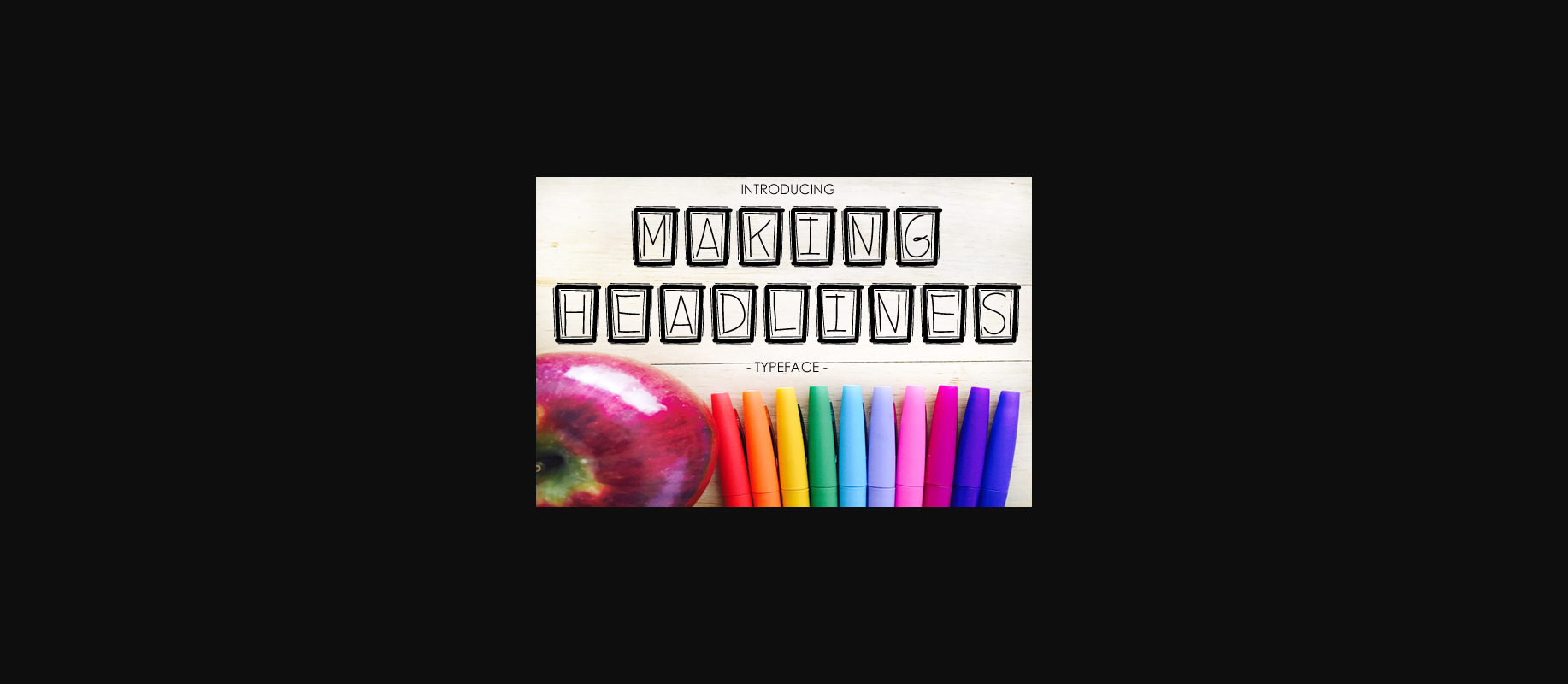
Making Headlines Font
About Making Headlines Font
Making Headlines is a cute headline font, perfect for use in a wide range of friendly projects! This font has the characters framed in quirkly,sketchy rectangles so your work can look fun and relaxed.